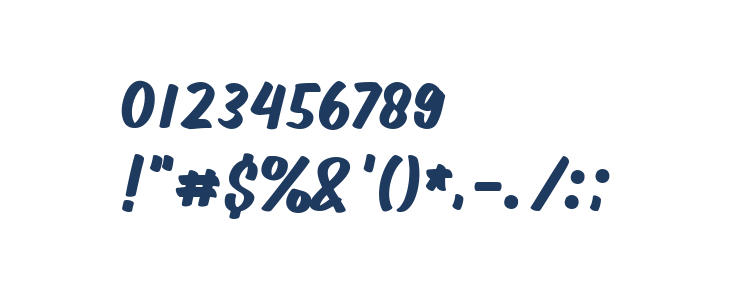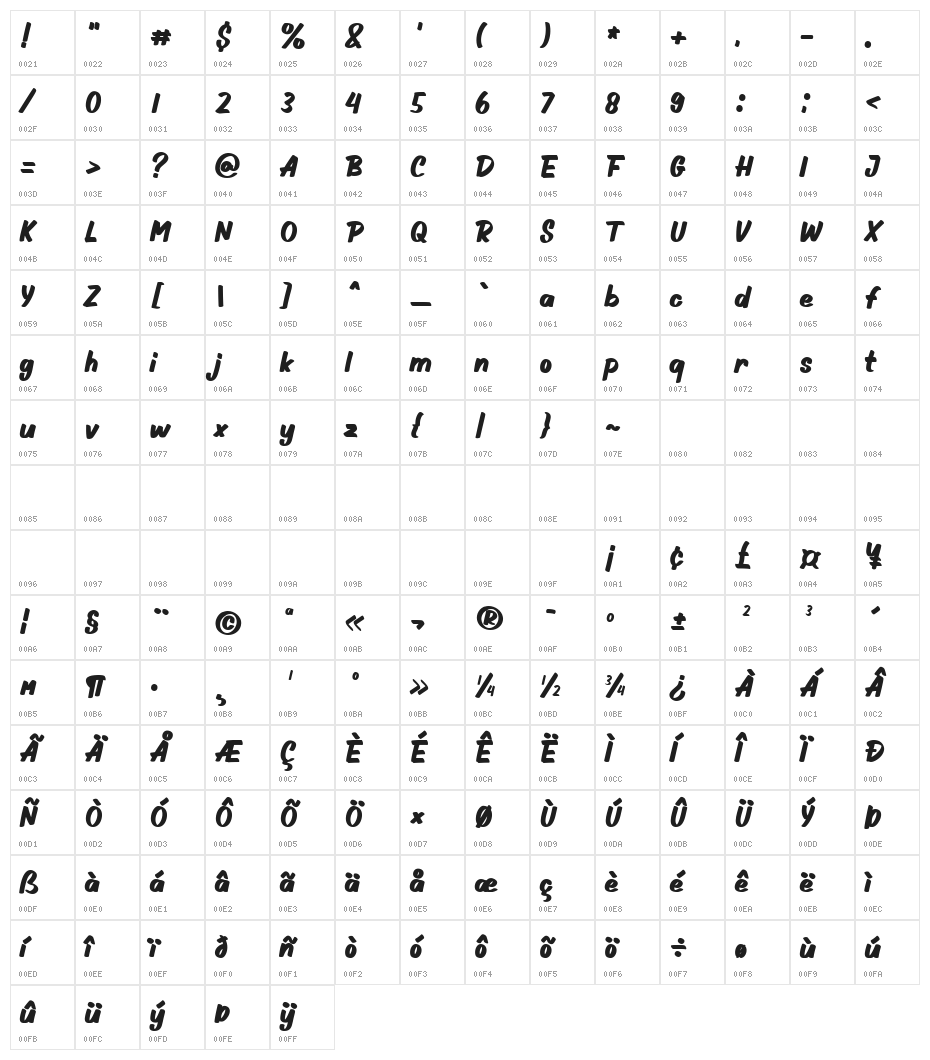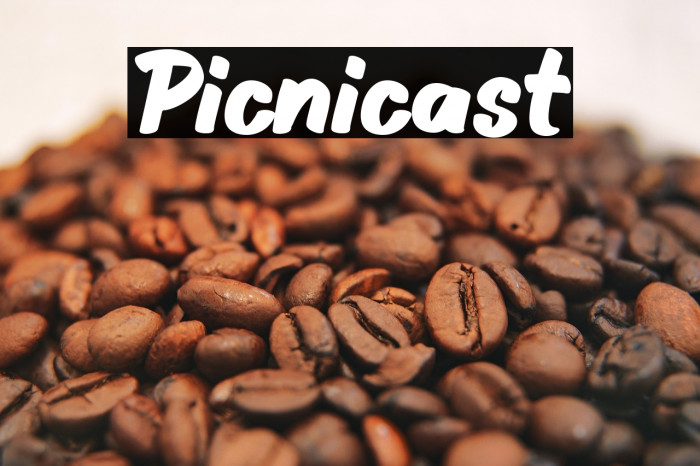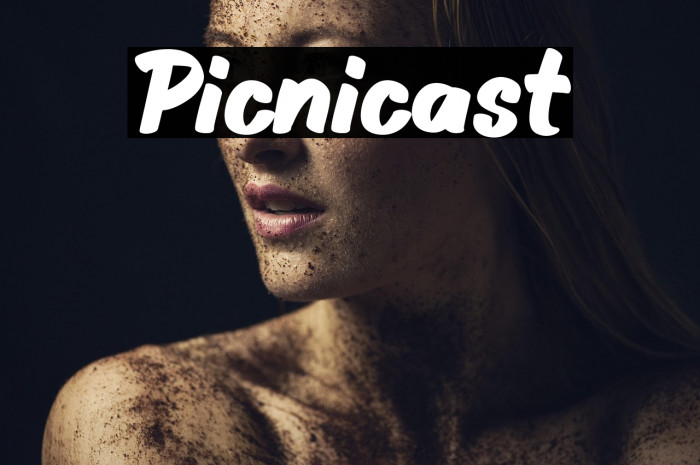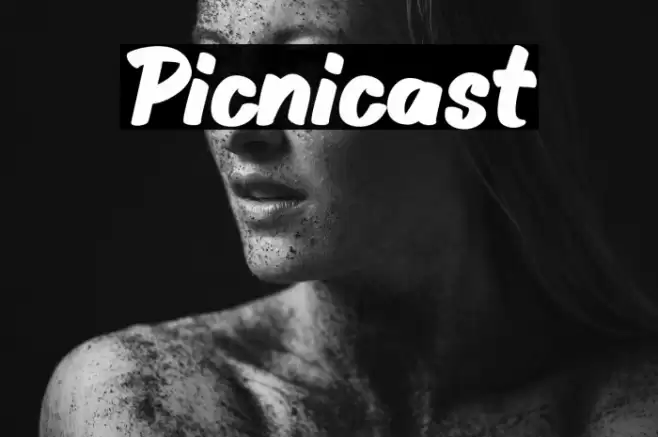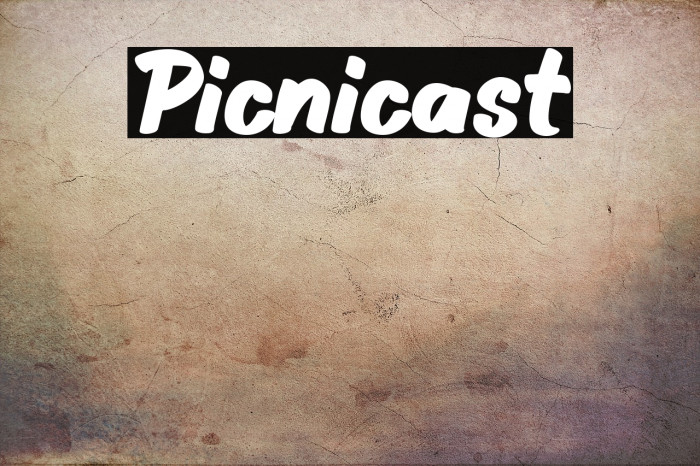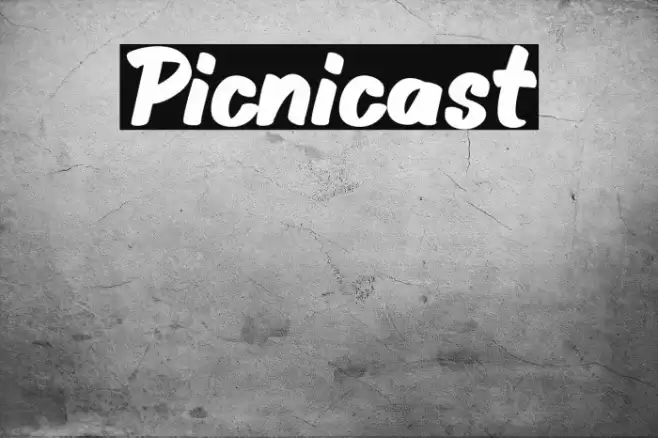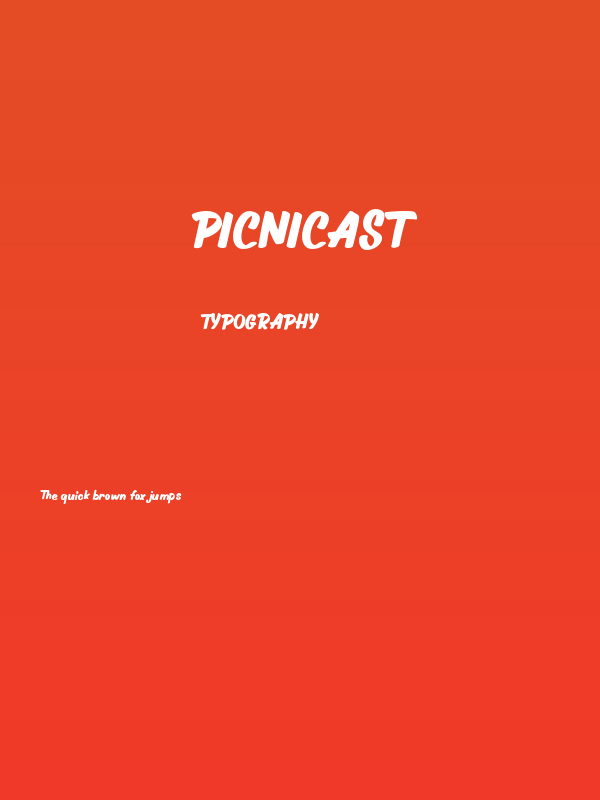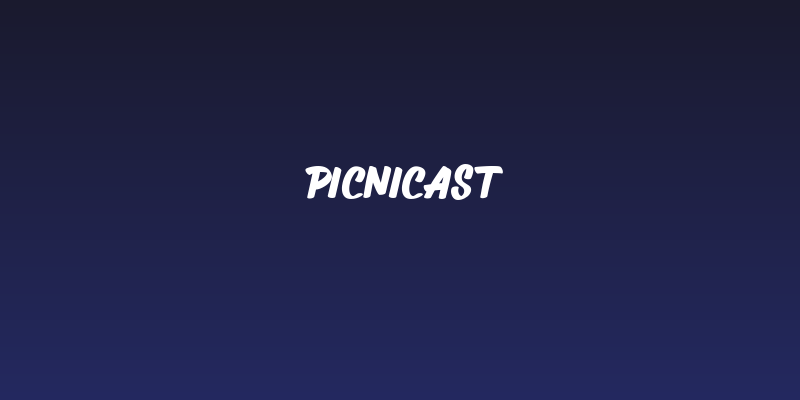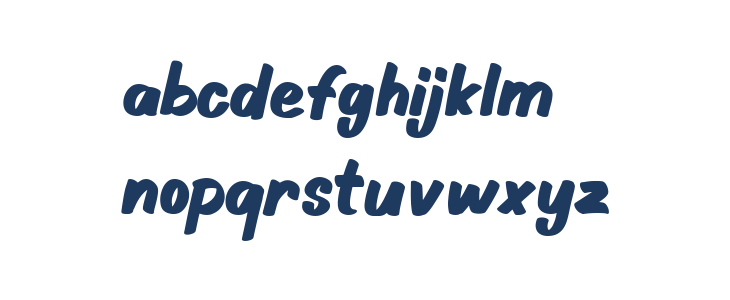
Picnicast Font
Picnicast Description
This font features a bold, playful style with a handwritten appearance. The characters are rounded and slightly slanted, giving a casual and friendly vibe. The uppercase letters are bold and prominent, while the lowercase letters maintain a consistent flow with a slightly smaller size. Numbers and special characters are designed to match the overall playful aesthetic, making them suitable for informal and creative projects. The font's strokes are thick and consistent, providing a strong visual impact.
| Proposed Projects | Ideal for children's books, playful branding, casual invitations, and creative posters. |